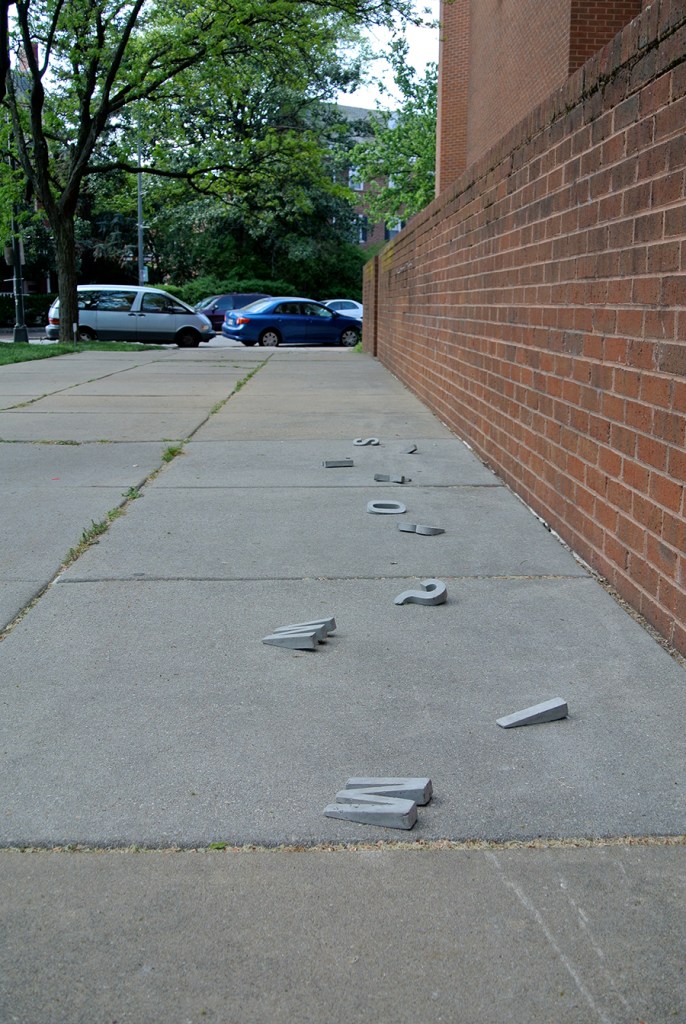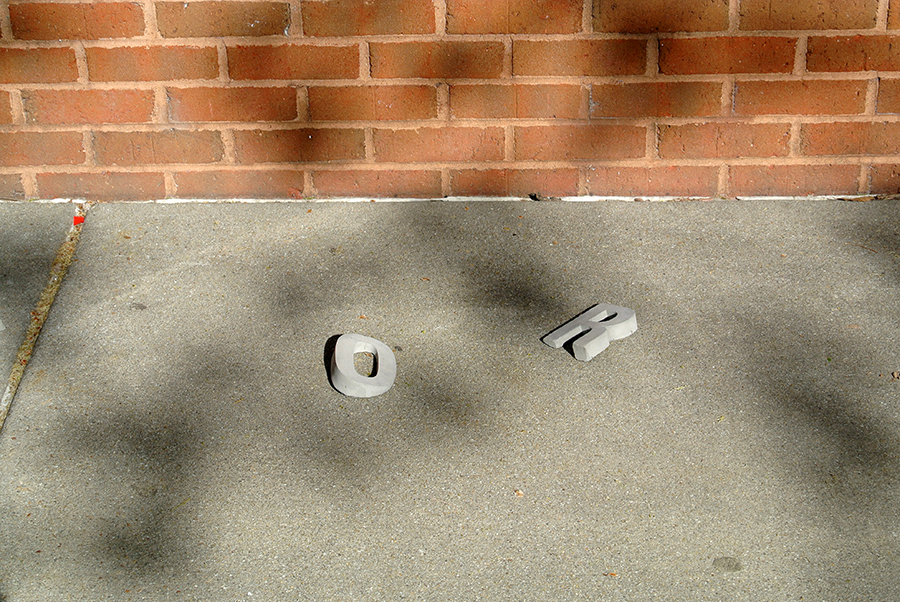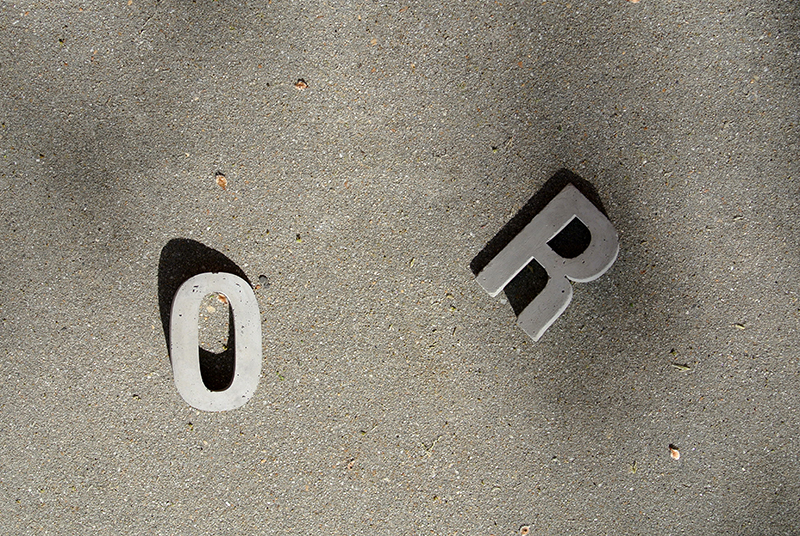
Sink or Swim/Typographic Installation
This piece consists of concrete letters cast from five inch by one inch thick silicone molds, which are then ground and hand sanded to distinct angles. The resulting forms were placed on the sidewalk so that the letterforms appear to be sinking as they deliver an apt message for the final weeks of the school year: It’s time to either buckle down and end the year strong, or sink and finish with a lackluster performance.
[Given funding and craftsman assistance, these letterforms would be five feet tall.]